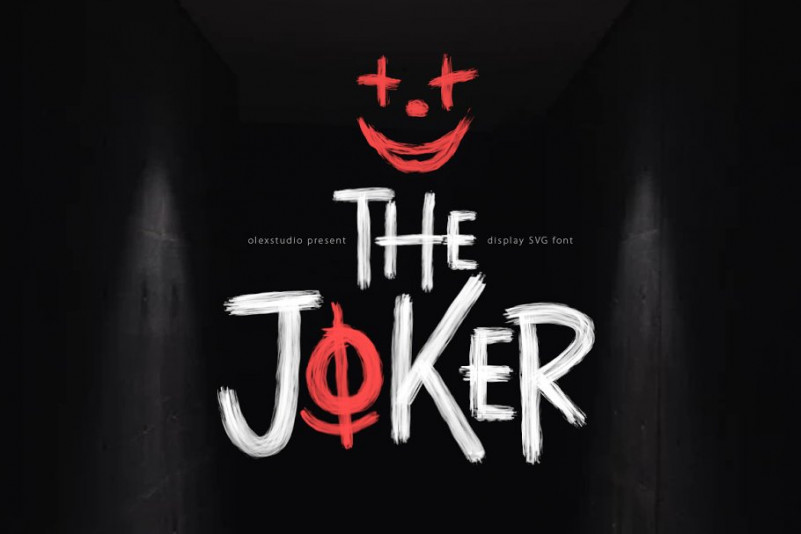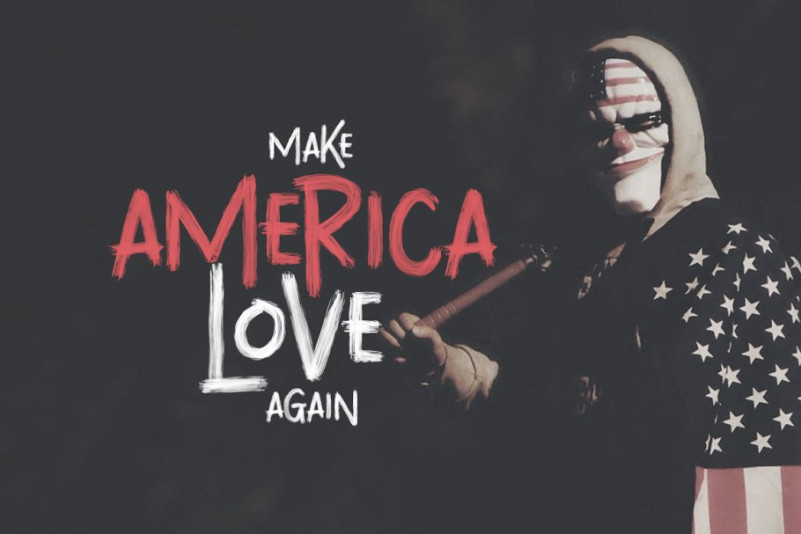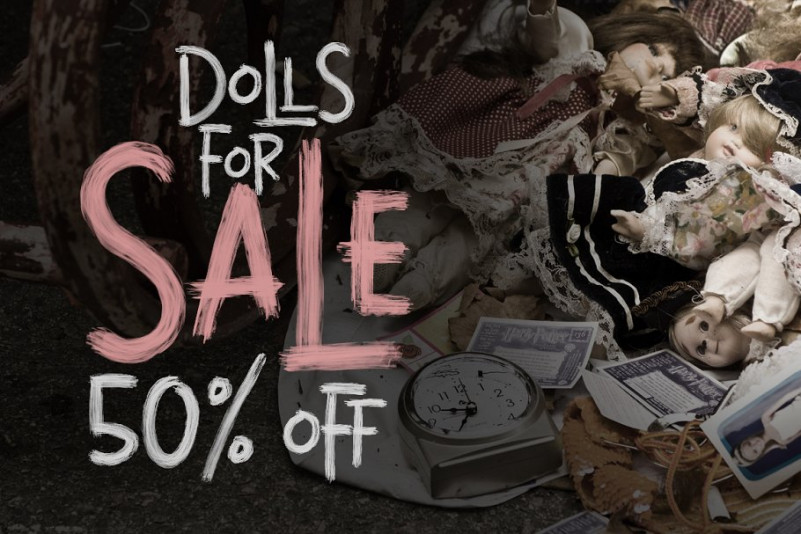
THE JOKER Font
THE JOKER – SVG font This Font will look gorgeous on all your designs, invitation, book, branding materials, logo’s, t-shirt, poster and all project design other.